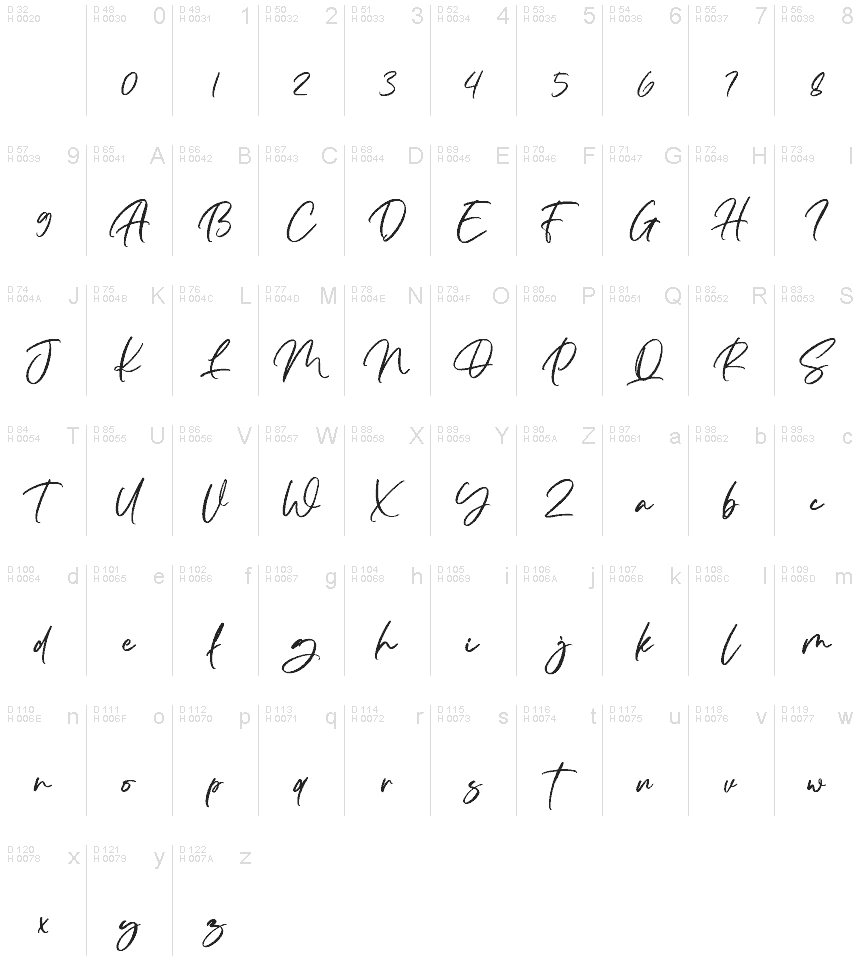
The Bellonte
The Bellonte font is a flowing handwritten font by Ibrahima Studio. Inspired by modern calligraphy, this free font exhibits elegant and expressive curves and forms which altogether deliver a sophisticated and premium appeal. Let loose your imagination in presenting your headlines, titles, tags, or even body text with a dashing personal touch.
Connecting all The Bellonte letters will unveil authentic handwritten beauty while the letters written separately will improve readability if needed. Experimenting with various combinations is a guarantee of spectacular results for use cases including websites, blogs, ads, prints on paper or textiles as well as greeting cards. This outstanding work is the perfect fit for designing truly stylish invitations such as wedding invitations.